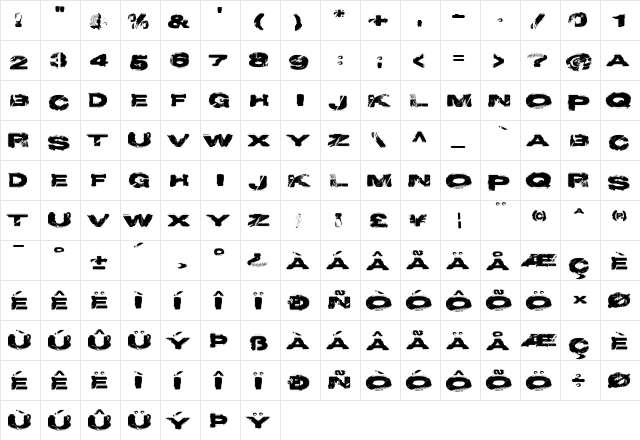
Project Y Regular
| Foundry | David Kerkhoff |
| Designer | David Kerkhoff |
Design Context for Project Y Typeface
Project Y is a composed and adaptable typeface that performs quietly and consistently across a wide range of design contexts.